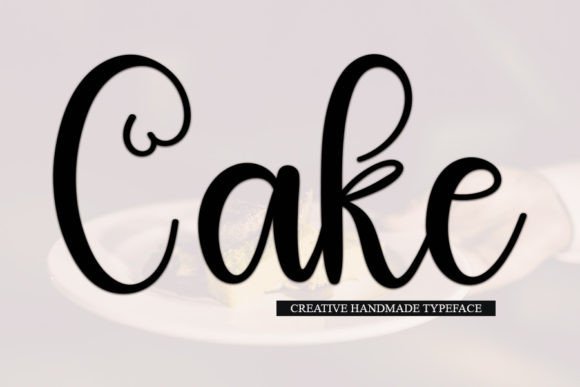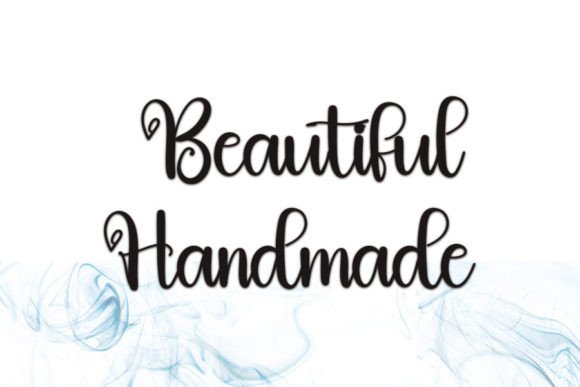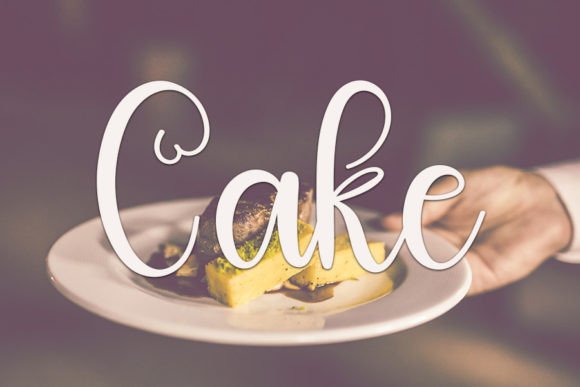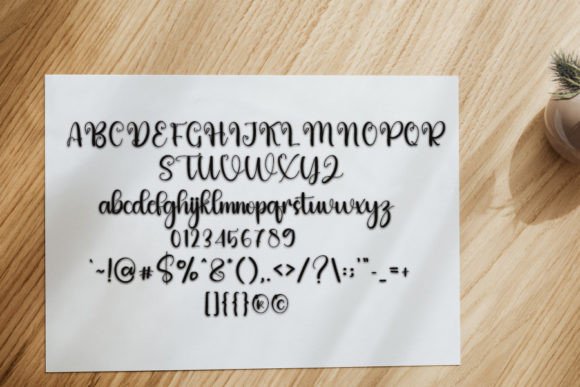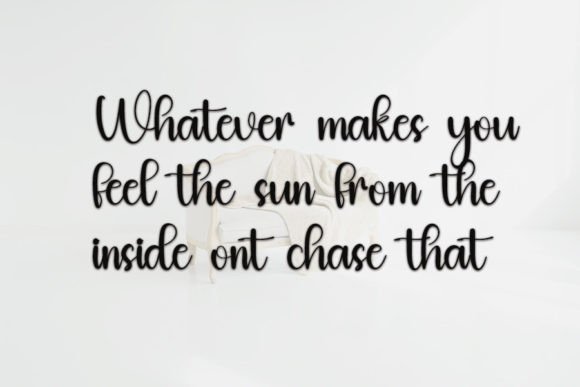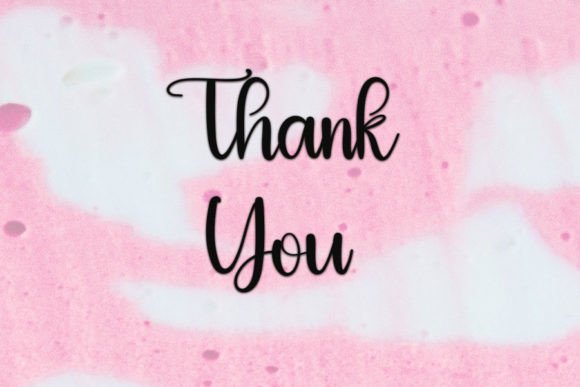
Cake
Supermen: Timeless Handwritten Elegance for Extraordinary Designs
Meet Supermen – a beautifully crafted handwritten font that combines distinctive character with versatile functionality. Whether you’re designing romantic wedding stationery or bold brand logos, this typeface delivers unforgettable typography.
Love Stories Begin Here
Perfect for weddings & luxury branding
Why Designers Choose Supermen
• Authentic Handwritten Feel: Natural flow with balanced imperfections
• Versatile Application: From watermarks to website headers
• Timeless Appeal: Classic style that never trends out
• Designer-Friendly: Includes alternates for unique combinations
Technical Details
• Character Set: Uppercase, Lowercase, Numbers, Punctuation
• Special Features: Contextual alternates, ligatures
✍️ Pro Tip: Combine uppercase and lowercase letters with varying sizes for organic, authentic-looking compositions.